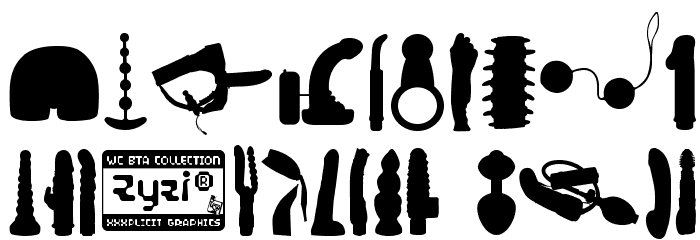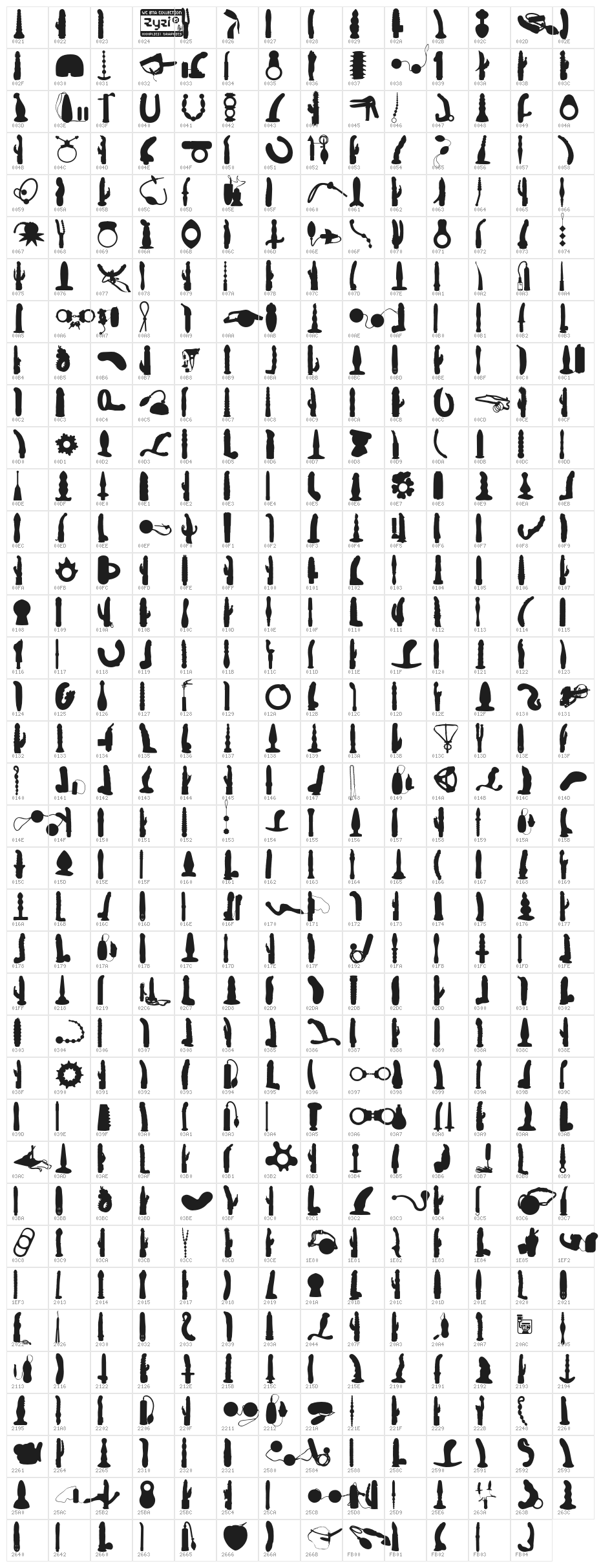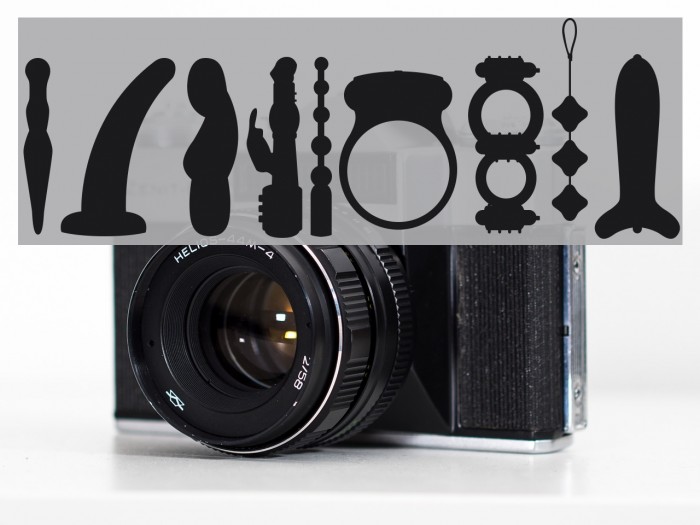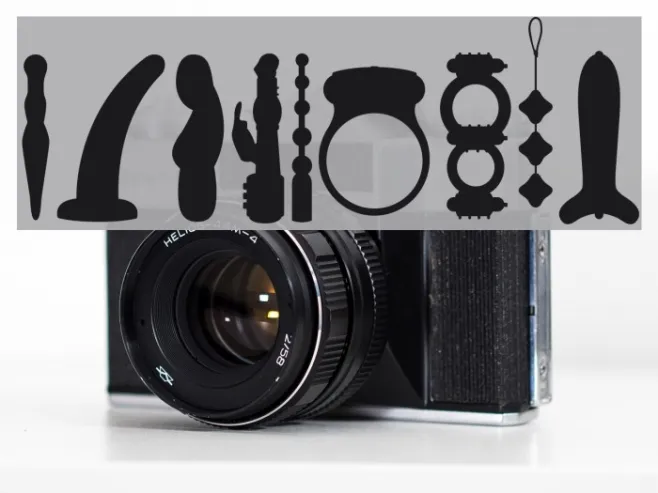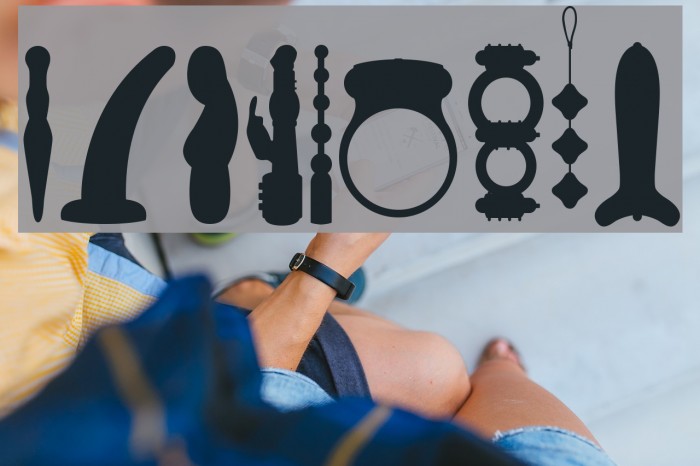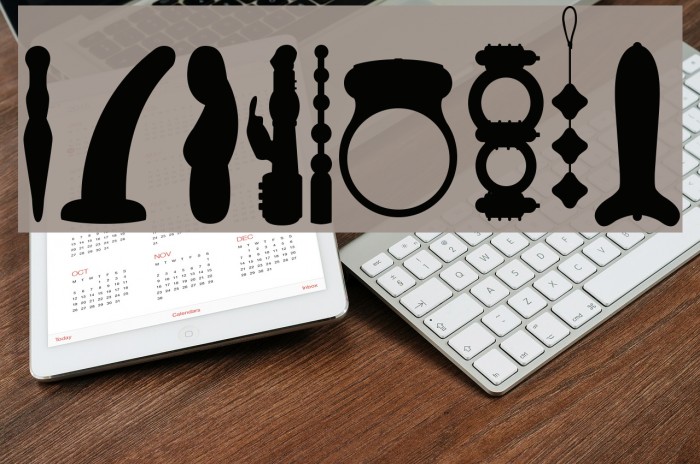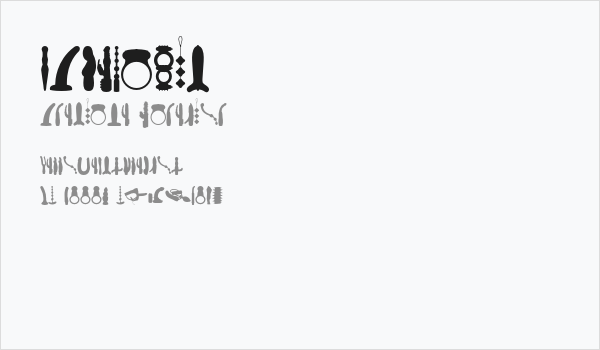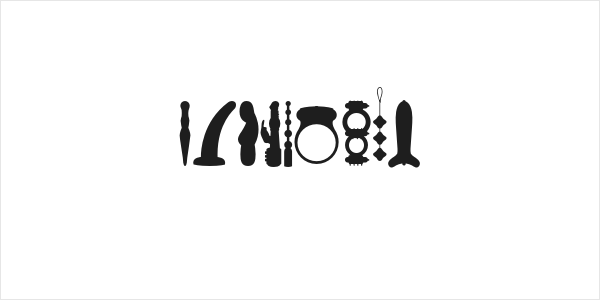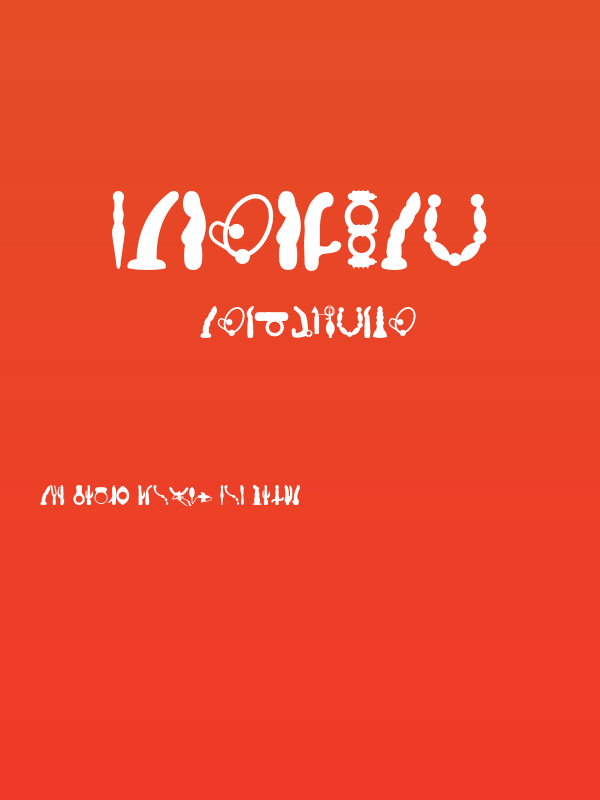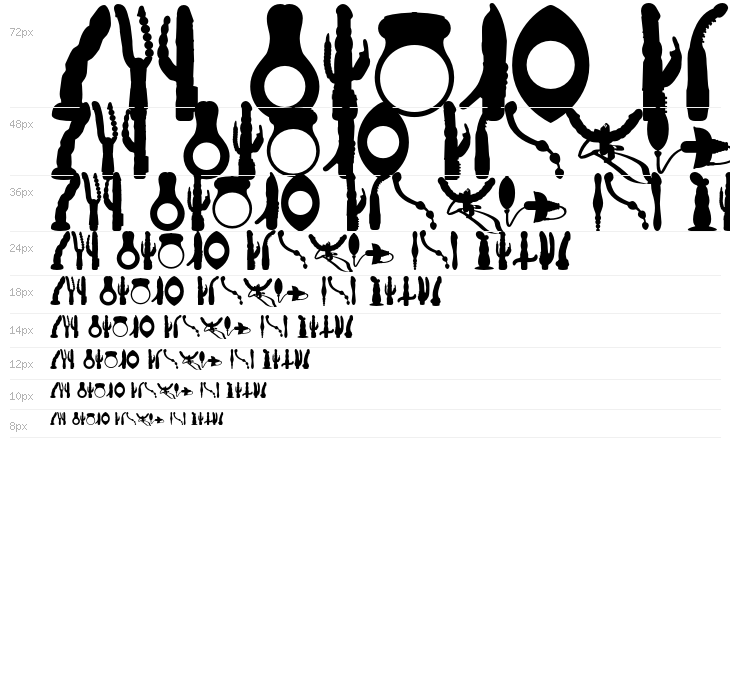
WCZyziBta Font
WCZyziBta Description
A decorative and highly stylized font composed of abstract, organic shapes and forms that resemble various tools or mechanical parts. The characters are bold, solid black silhouettes with irregular contours and intricate details, creating a unique and unconventional appearance.
| Overall Style | Abstract, Industrial, Experimental |
| Use Case | Headlines, Logos, Artistic Projects |
| Proposed Projects | Suitable for artistic posters, experimental graphic design, logos for creative industries, and projects requiring a distinctive, industrial or mechanical aesthetic. |